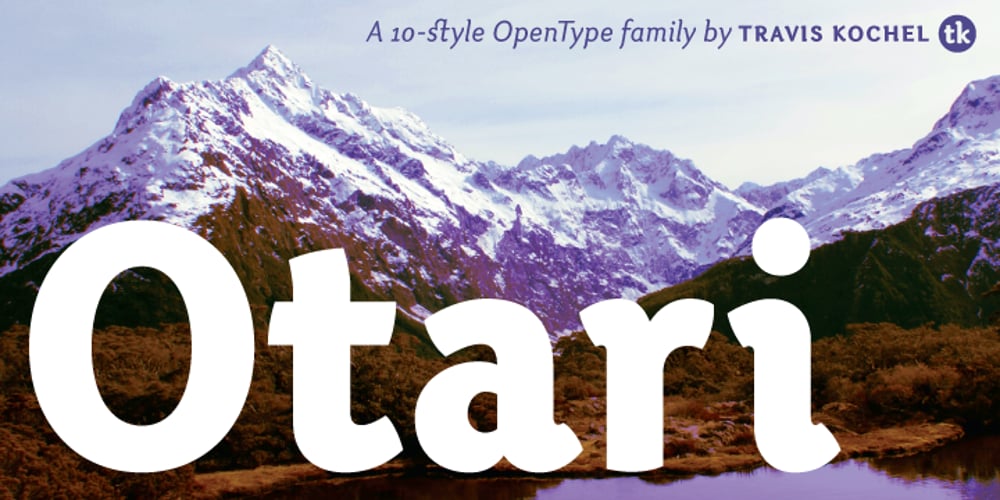
Otari Font Family was designed by Travis Kochel and published by TK Type. Otari contains 11 styles and family package options. Otari is vibrant and contemporary, but serious and built to last. Its character shines in display type, but doesn’t interfere at text sizes. Otari aims to capture the essence of Wellington, New Zealand in a single typeface. The contrast of a colorful art scene and the conservative colonial British aesthetic, which is still evident in the capital city, laid the groundwork for this design.